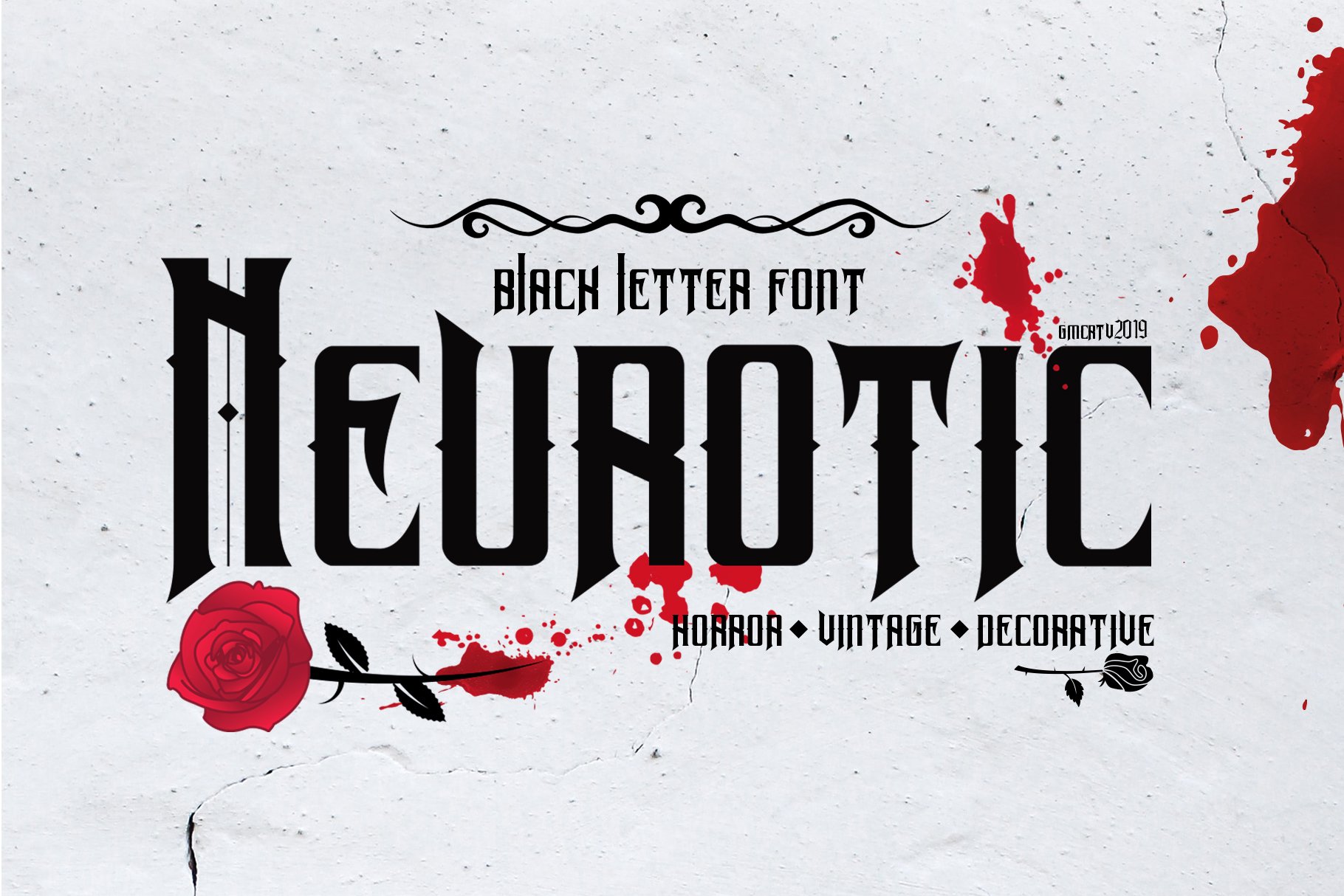
Neurotic Font
Neurotic Font is perfect for edgy graphic design, alternative music branding, underground art projects, avant-garde publications, experimental marketing campaigns, creative agency materials, artistic posters, and unconventional visual communications.
Neurotic Font is exciting because it embodies raw creative energy with distinctive letterforms and expressive character details that challenge conventional typography boundaries. Its bold personality creates immediate visual tension and artistic authenticity that resonates with audiences seeking genuine creative rebellion and unconventional design solutions.
Neurotic Font family includes regular weight with expressive alternates and artistic variations, providing designers with comprehensive options for creating provocative typography solutions that project creative intensity and artistic nonconformity.
Creative professionals consistently select Neurotic Font for projects requiring artistic rebellion and unconventional visual impact. Its provocative character works magnificently in alternative venues, experimental galleries, underground publications, and creative studios where artistic authenticity and rebellious personality drive audience engagement. The font's intense nature creates memorable brand experiences that communicate creative freedom and artistic independence.
The Neurotic Font download package includes expressive alternates, artistic variations, and rebellious symbols that enhance its alternative appeal and design versatility. This comprehensive collection ensures professional results in experimental design projects requiring provocative typography character. The font performs exceptionally across both digital and print applications where its unconventional details and artistic proportions create significant visual impact and creative distinction.
Design teams appreciate Neurotic Font's ability to communicate creative authenticity and artistic rebellion in competitive creative markets. Its provocative styling transcends mainstream typography approaches while maintaining the intensity required for alternative positioning, making it an essential tool for organizations seeking to establish genuine connections through superior alternative typography and exceptional creative communication.